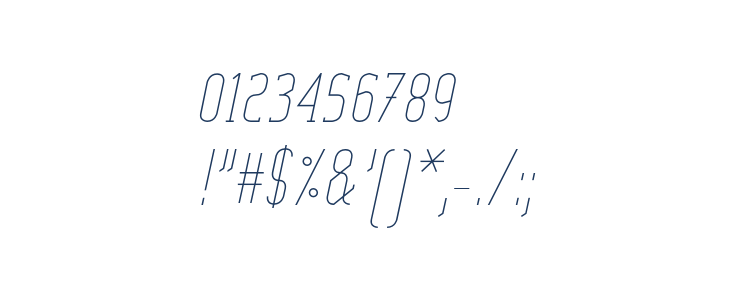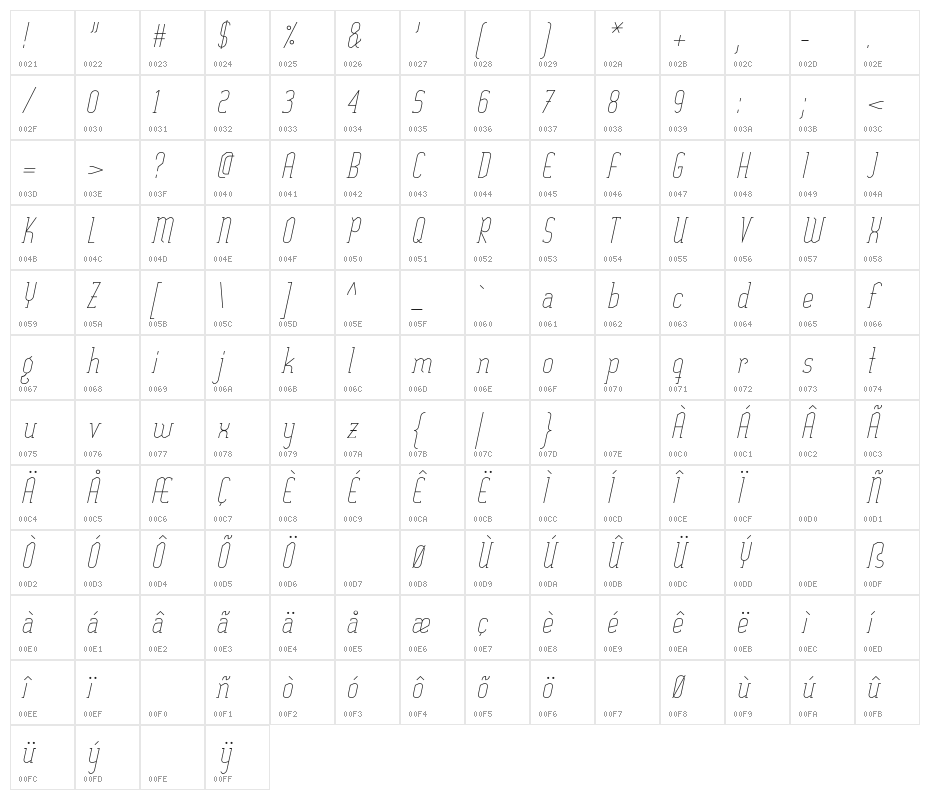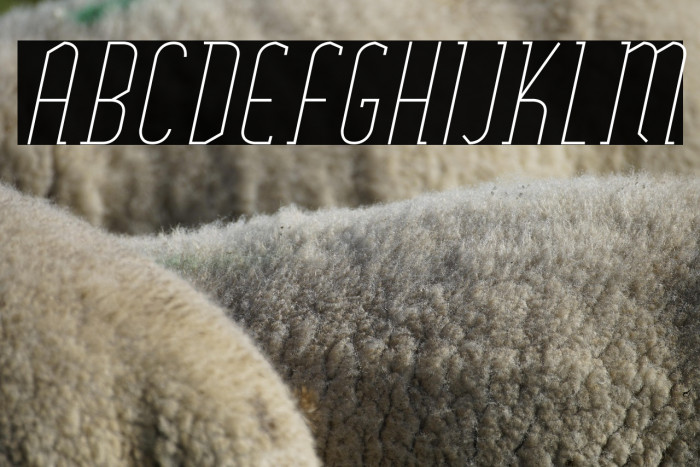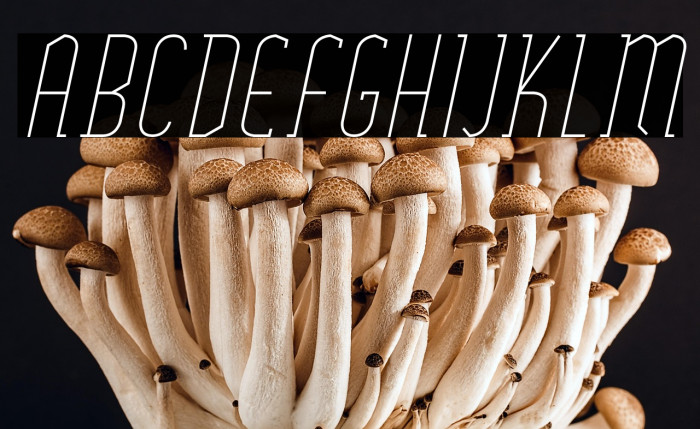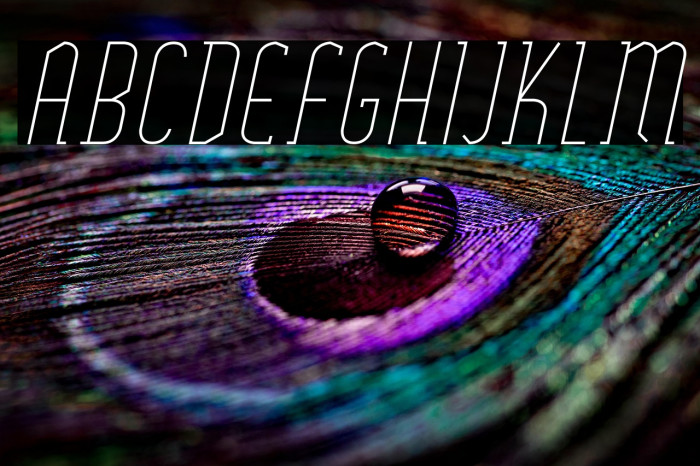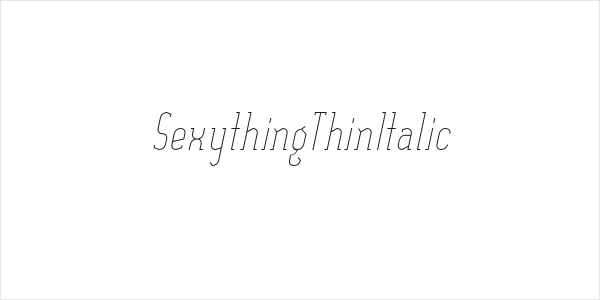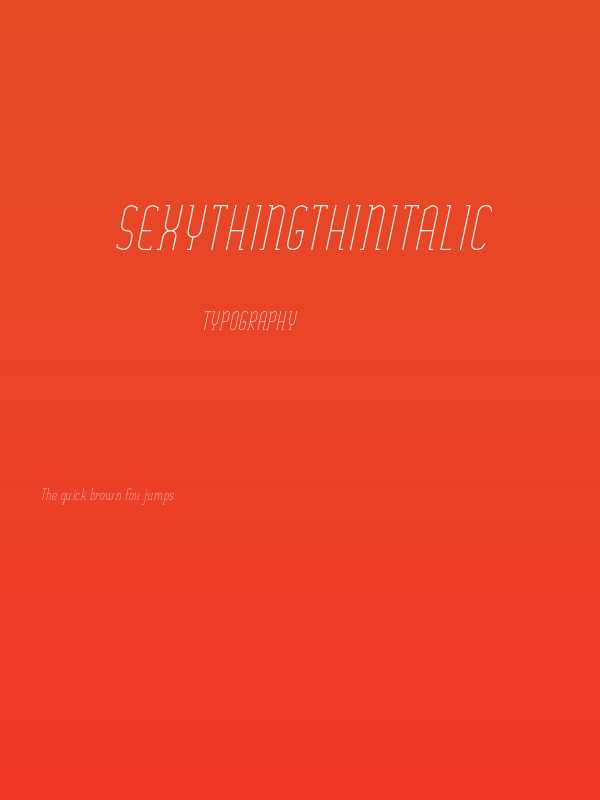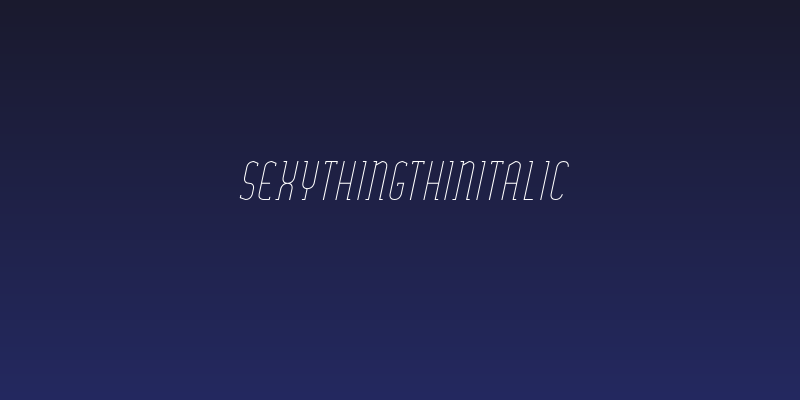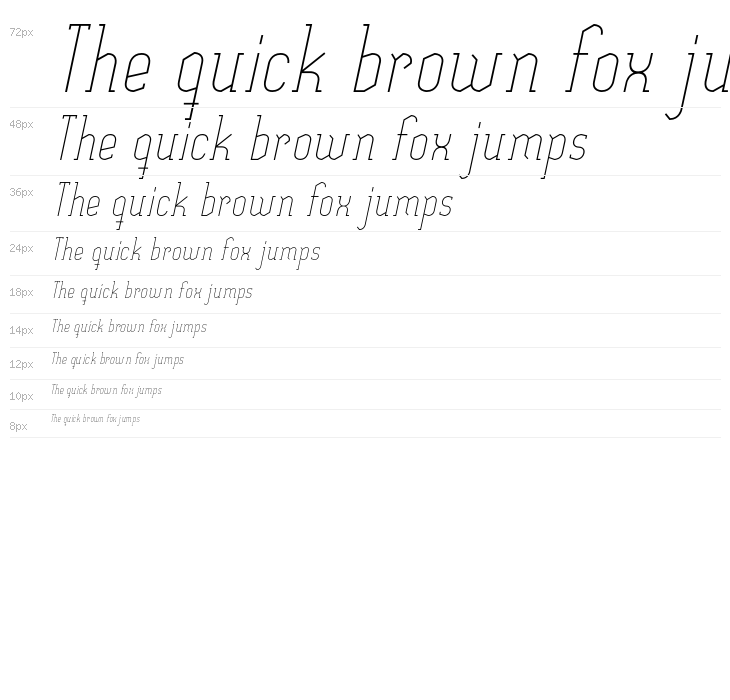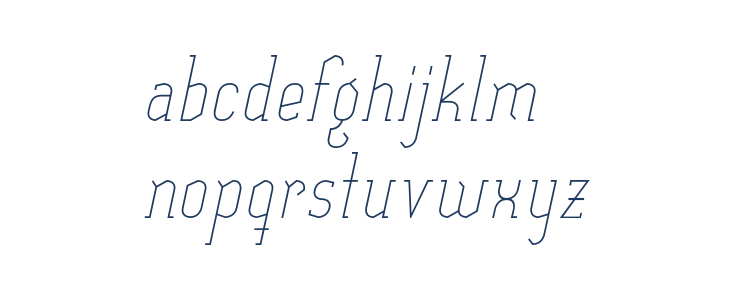
SexythingThinItalic Font
SexythingThinItalic Description
This font features a sleek, elongated design with a distinct italic slant, giving it a modern and sophisticated appearance. The characters are thin and delicate, with a consistent stroke width that adds to its elegant style. The uppercase letters are tall and narrow, while the lowercase letters maintain a similar slenderness, creating a cohesive look. The numbers and special characters follow the same design principles, ensuring uniformity across all glyphs. This font's refined and stylish nature makes it suitable for projects that require a touch of elegance and modernity.